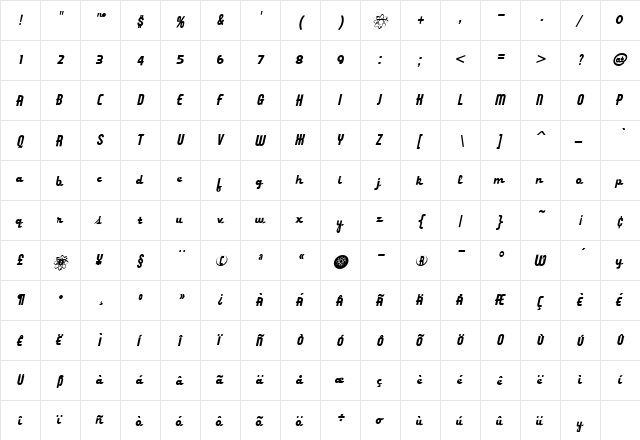
ZavTone Regular
Design Context for ZavTone Typeface
ZavTone takes a measured approach to typography — its balanced proportions and neutral character make it a reliable workhorse for both digital and print work.